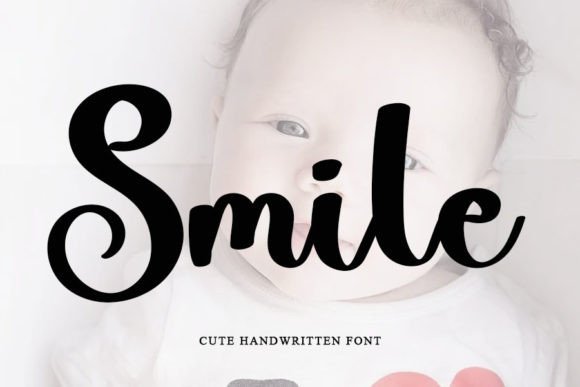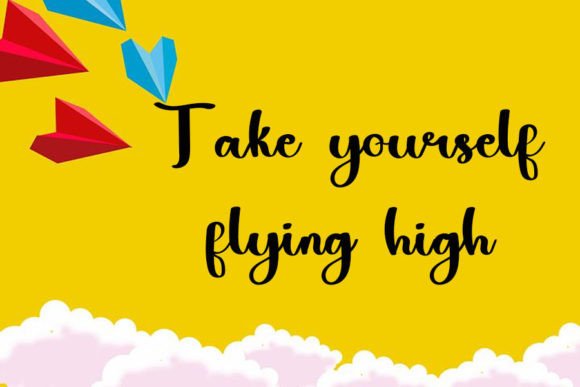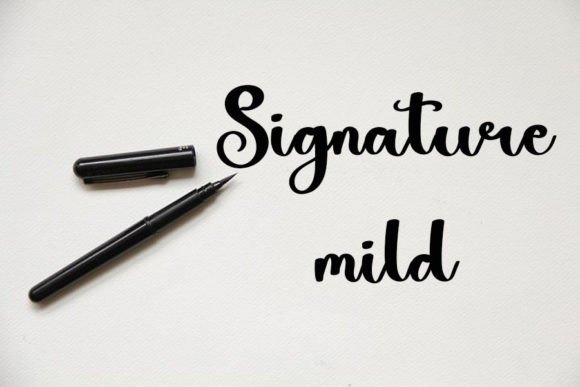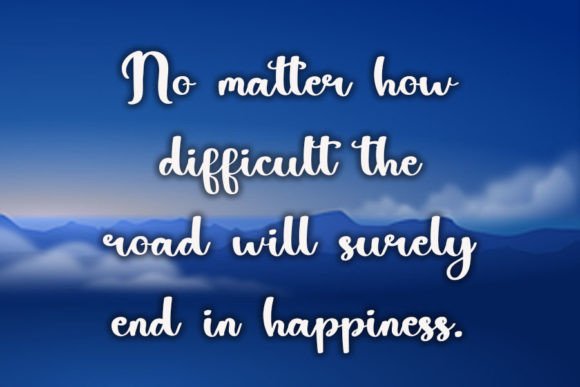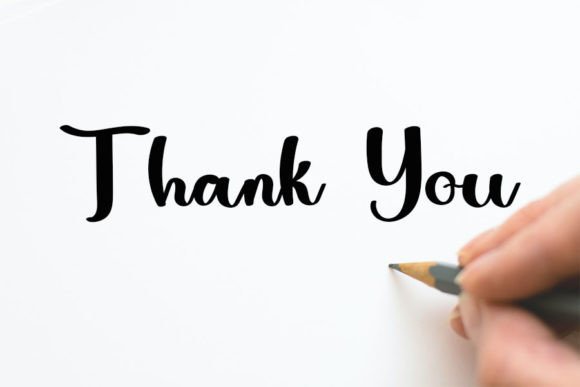
Smile Font
A Magical and Elegant Handwritten Script
Smile is a charming handwritten font designed to bring joy, elegance, and a little bit of quirkiness to your projects. Each letter features clean, flowing lines that feel modern yet personal. The balanced shapes and playful character make Smile the perfect choice for designs that need both sophistication and warmth.
Whether you’re working on digital content or printed materials, Smile adds a unique touch that makes your text stand out beautifully.
Smile is a flexible font that adapts easily to a variety of uses. It’s perfect for logos and branding materials where you want your business to feel friendly and approachable. The clean, handwritten style helps create a professional yet personal image.
Use Smile for social media graphics, Instagram posts, and Pinterest pins. Its playful elegance makes your content eye-catching and memorable.
Smile is also ideal for DIY projects like handmade cards, custom labels, and wedding invitations. The charming details add a heartfelt feel to every piece.
This font shines on product packaging, business cards, and marketing materials. Whether you’re designing something simple or elaborate, Smile helps your work feel fresh and polished.
The font includes uppercase and lowercase letters, numbers, and punctuation marks. Ligatures are included to help your text flow naturally and look cohesive.
Clear, Warm, and Easy to Read
Even with its decorative script style, Smile remains clear and easy to read at any size. The balanced spacing ensures your text looks neat, whether it’s large headlines or small captions.
Many designers pair Smile with a clean sans-serif font for contrast. Use Smile for titles and the sans-serif for supporting text. This combination guides the reader’s eye and creates a modern, organized layout.
To showcase Smile’s elegant and fun character, use soft backgrounds and warm color palettes. Shades like blush, cream, and light gray help the smooth curves stand out without distractions.
For social media and branding materials, consider adding simple illustrations or hand-drawn icons to complement the handwritten style. For DIY projects and packaging, keep your layouts clean so the font remains the main focus.
Think about the mood you want to create. Smile is perfect for designs that should feel cheerful, stylish, and sincere.
Smile is more than just a handwritten font. It’s a design tool that transforms ordinary text into something special and unforgettable. Its clean lines and subtle quirks bring personality and sophistication to every project.
Adding Smile to your font collection gives you a reliable choice for any creative work. From branding and packaging to social media and handmade crafts, this font adapts effortlessly to your ideas.